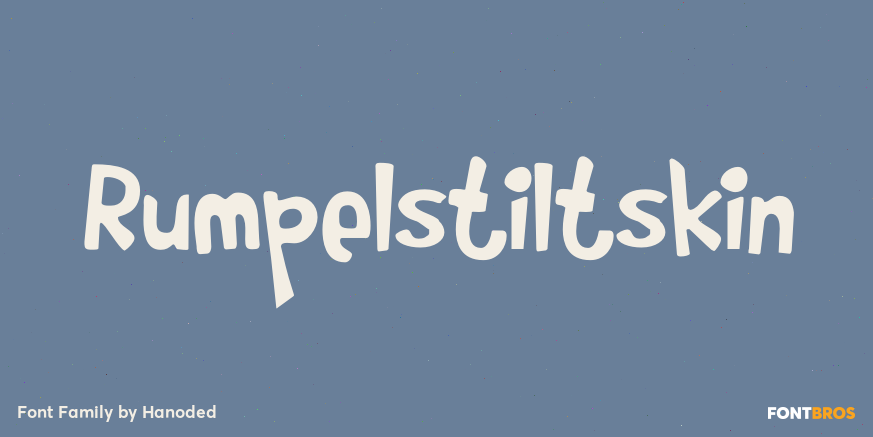
HomeFont BrosHandwrittenRumpelstiltskin HandwrittenWacky Rumpelstiltskin FacebookXPinterestWhatsApp 1 of 1 About Rumpelstiltskin A cartoonish, happy font with an uneven baseline, great for use in children\’s books and cards.  DOWNLOAD ON FONT BROSThis font is sold and delivered by Font Bros. Font Canyon may earn a commission if you buy through this link. People also explored School Project Font Baetrice Font Month of Love Font Somebody Font Bronahia Font Comely Dulcet Font Ginora Font Glossy Monogram Font Wolnoet Font 205 0 TagsRumpelstiltskin Font Previous articleJasmineNext articleMeloche LEAVE A REPLY Cancel reply Comment: Please enter your comment! Name:* Please enter your name here Email:* You have entered an incorrect email address! Please enter your email address here Website: Save my name, email, and website in this browser for the next time I comment. Personal Use Free Little Things Duo Personal Use Free Read more about this font Masha Song Personal Use Free Read more about this font Calling Personal Use Free Read more about this font Open Heart Personal Use Free Read more about this font BLOG Free vs Paid Fonts: Why Investing in Premium Fonts Is Worth It Free vs Paid Fonts: Why Premium Fonts Are Worth It in 2025 The debate of free vs paid fonts continues in the design world. While... How to Cut Any Font on Cricut: Convert a Font to SVG (Free) Fonts That Capture the Spirit of New York City Top 10 Handwritten Fonts That Elevate Your Designs